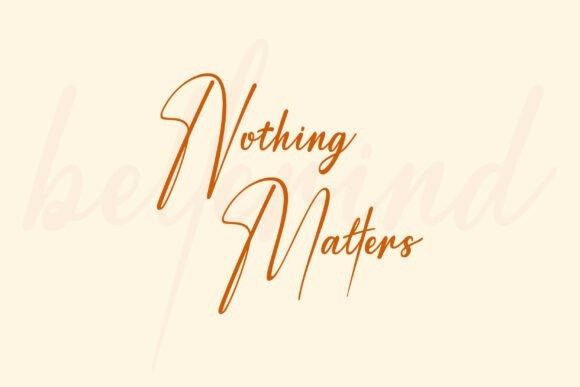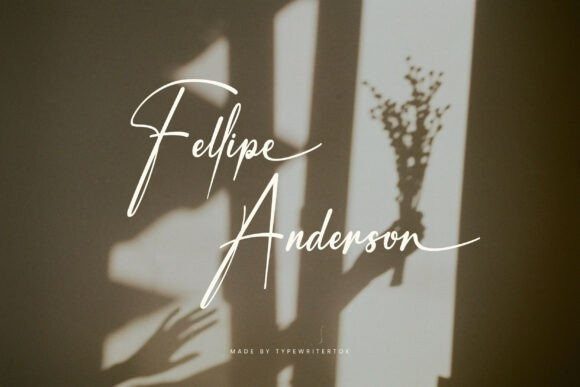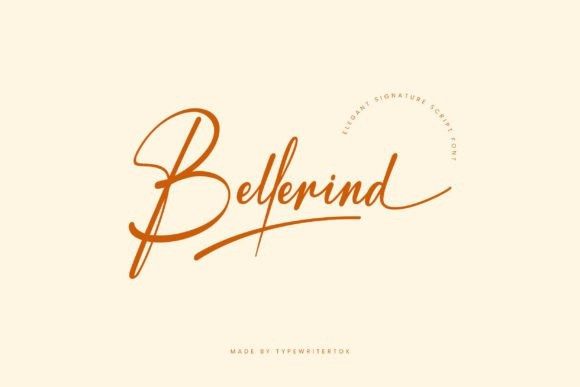
Bellerind Script Font
Bellerind Script Font is a graceful signature script font that combines effortless flow with timeless elegance.Perfect for wedding invitations, personal branding, logos, and stationery, this font mimics real handwriting with a stylish flair. Its fluid strokes and sophisticated curves create a luxurious handwritten look, ideal for premium designs.
Add charm and femininity to any creative project with Bellerind’s classy touch and natural movement.